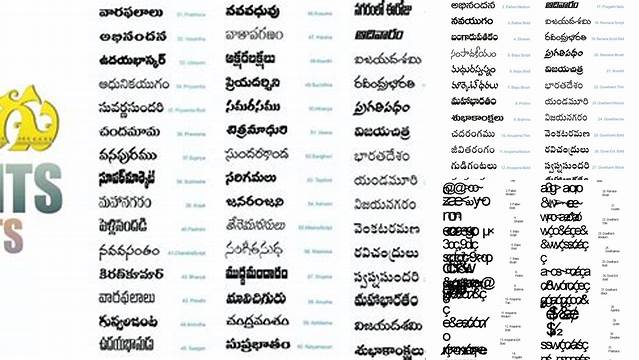
Anu Script Telugu Fonts PDF: Your Ultimate Guide
Hey guys! Ever found yourself struggling to find the perfect Telugu fonts for your projects, especially when you need them in PDF format? You're not alone! The world of digital typography can be a bit tricky, and when it comes to specific scripts like Telugu, it gets even more interesting. Today, we're diving deep into the realm of Anu Script Telugu Fonts PDF. We'll explore what they are, why they're so popular, and how you can make the most out of them for your creative endeavors. So, buckle up, and let's get started on this font-finding adventure!
Understanding Anu Script Telugu Fonts
First things first, let's break down what we mean by 'Anu Script Telugu Fonts'. When we talk about Anu Script, we're generally referring to a specific style or set of Telugu fonts that are designed to be easily readable and aesthetically pleasing on digital screens and in print. These fonts often aim to capture the elegance of traditional Telugu script while incorporating modern design principles for better usability. The goal is to bridge the gap between the classic look and the demands of contemporary digital content. Think of them as the stylish and functional upgrade your Telugu text has been waiting for. Many designers and content creators prefer Anu Script fonts because they offer a good balance between artistic flair and clear legibility, making them suitable for a wide range of applications, from book printing and website design to social media graphics and personal documents. The nuances of each character are carefully crafted, ensuring that the essence of the Telugu language is preserved while enhancing its visual appeal. This attention to detail is what sets apart quality fonts from the rest, and Anu Script fonts often deliver on this front. They are not just about letters; they are about conveying meaning and emotion through form.
The Importance of Telugu Fonts in Digital Content
In today's digital-first world, the way your content looks is just as important as the words themselves. For a rich and vibrant language like Telugu, having the right fonts is crucial for engaging your audience. Telugu fonts are the visual ambassadors of your message. Whether you're writing a blog post, designing a poster, or creating social media content, the choice of font can significantly impact how your message is perceived. A well-chosen font can make your text look professional, trustworthy, and appealing, while a poorly chosen one can be distracting or even off-putting. For the Telugu language, this means using fonts that accurately represent the intricate beauty of the script, ensuring clarity and readability across various devices and platforms. This is where fonts like Anu Script come into play, offering a blend of tradition and modernity. They help maintain the cultural identity of the language while adapting it for a global digital audience. The readability factor is paramount, especially for longer texts. If readers have to strain their eyes to decipher the words, they're likely to disengage. Good Telugu fonts ensure that the flow of information is smooth and enjoyable. Furthermore, in branding and marketing, the right font can become synonymous with a company or a campaign, creating a lasting impression. It’s a powerful tool in the communication arsenal, and mastering its use for Telugu content is a game-changer for anyone looking to connect effectively with Telugu speakers. The visual representation of the language carries weight, and optimizing it through superior font choices is a strategic move that pays dividends in audience engagement and brand recognition. The evolution of Telugu script in digital media has been greatly influenced by the availability of diverse and high-quality fonts.
Why Choose Anu Script for Your Telugu Projects?
So, why should you specifically look for Anu Script Telugu fonts? The answer lies in their versatility and aesthetic appeal. These fonts are often designed with a keen eye for detail, ensuring that each character is not just legible but also beautiful. They strike a perfect balance between the traditional charm of Telugu script and the clean, modern look that's essential for today's digital and print media. Whether you're designing a wedding invitation, a formal document, or a catchy social media graphic, Anu Script fonts can add that extra touch of sophistication and professionalism. They tend to render exceptionally well on screens, reducing eye strain and making your content a pleasure to read. For print, they offer crisp lines and a pleasing density. Many users find that Anu Script fonts are also quite flexible, meaning they can be used across a variety of software applications without compatibility issues. This ease of use, combined with their attractive design, makes them a go-to choice for many who work with Telugu content regularly. They often come with a comprehensive set of characters, including ligatures and special symbols, which are vital for accurate and expressive writing in Telugu. The creators of these fonts usually invest a lot of time in research and development to ensure they meet the needs of both casual users and professional designers. The consistency in stroke weight and spacing across characters contributes to a harmonious reading experience, which is a hallmark of well-designed typography. Choosing Anu Script is choosing a font that understands the nuances of Telugu and presents it in a way that resonates with contemporary audiences while respecting its heritage. It’s about making your words not just seen, but felt.
Exploring Anu Script Telugu Fonts PDF Options
When you're on the hunt for Anu Script Telugu fonts, you'll often encounter them in PDF format. But what does that mean, and why is it relevant? A Telugu fonts PDF usually refers to documents or resources where these fonts are showcased, explained, or even provided for download. Sometimes, designers create sample PDFs to demonstrate how the fonts look in different contexts – headings, body text, different sizes, etc. Other times, it might be a PDF guide on how to install and use these fonts. The key thing to remember is that a PDF itself isn't the font file (like TTF or OTF), but rather a document containing or referencing the font. Think of it as a visual catalog or a user manual. So, when you search for "Anu Script Telugu Fonts PDF," you might be looking for a downloadable sample book, a type specimen sheet, or perhaps even a bundle of font files packaged within a ZIP archive that also includes a PDF guide. It's important to understand this distinction so you know what you're actually downloading and what you need to do with it once you have it. The goal is to find resources that are genuinely helpful, whether they offer direct font downloads or simply provide the inspiration and information you need to acquire and use them effectively. This clarity helps in navigating the vast digital landscape of fonts more efficiently and finding exactly what you need without frustration. The utility of a PDF in this context is its portability and universal compatibility, allowing easy sharing and viewing across different devices and operating systems. It serves as a readily accessible reference material for anyone interested in using these specific Telugu fonts.
Benefits of Using PDF for Font Previews
Using PDFs as a way to preview or showcase Anu Script Telugu fonts has several advantages, guys. Firstly, PDFs maintain their formatting perfectly across different devices and operating systems. This means that a font sample you see on your computer will look exactly the same on your friend's computer or even when printed. This consistency is super important when you're evaluating how a font looks and reads. Secondly, PDFs are great for embedding font information (though not the actual font files usually, unless specifically designed to). This allows viewers to see the font as intended by the designer. Thirdly, PDFs can be easily shared via email or downloaded from websites without worrying about compatibility issues. They act as a universal canvas for typography. Designers often create detailed type specimen PDFs that show the font in various weights, sizes, and character sets, helping users understand its full potential. This is invaluable when you need to see how the font handles different scenarios – from catchy headlines to lengthy paragraphs. So, when you find an "Anu Script Telugu Fonts PDF," it’s likely a well-thought-out resource designed to give you a clear and accurate preview of the font's appearance and usability. It's a professional way to present typographic work, ensuring that potential users can make informed decisions about whether the font fits their needs. The static nature of a PDF also prevents accidental edits, preserving the designer's intended presentation.
Installing and Using Anu Script Telugu Fonts
Once you've found and downloaded your desired Anu Script Telugu fonts, the next step is to get them installed on your system. The process is usually straightforward, but it can vary slightly depending on your operating system (Windows, macOS, or Linux). Generally, font files come in formats like TrueType (.ttf) or OpenType (.otf). For installation, you typically just need to double-click the font file. On Windows, this often opens a window with an "Install" button. On macOS, double-clicking usually opens the Font Book application, where you can click "Install Font." Once installed, the font should become available in most of your applications – word processors, graphic design software, etc. Using Telugu fonts like Anu Script in your projects is where the real magic happens. Open your chosen application, select the text tool, and look for your newly installed Anu Script font in the font dropdown menu. Type away and see your Telugu text come to life! If you're working with a PDF that contains these fonts, you can often copy and paste text from it, provided the PDF's security settings allow it and the text is actually embedded as text rather than an image. However, remember that just because you see a font in a PDF doesn't mean you have it installed. You'll still need to acquire the font file itself to use it in your own documents. Mastering the installation and usage ensures that you can seamlessly integrate these beautiful fonts into your workflow, enhancing the visual appeal and professionalism of all your Telugu content. It’s all about making the technology work for you and your creative vision.
Even with the best fonts, you might run into a few hiccups. A common issue when working with Telugu fonts is incorrect rendering, where characters might appear jumbled or misplaced. This can sometimes happen due to font conflicts, incorrect installation, or software compatibility problems. If your Anu Script font isn't showing up in your application, try restarting the application or your entire computer. Sometimes, the font cache needs to be cleared. Another issue could be incorrect character mapping, especially if you're using a font that wasn't designed with proper Unicode support. Always ensure you're downloading fonts from reliable sources that adhere to Unicode standards. If you're experiencing display problems, check if the font has multiple files (e.g., Regular, Bold, Italic) and if you've installed all of them correctly. For PDFs, if text isn't copying correctly, it might be because the text was saved as an image rather than actual text data, or font embedding restrictions are in place. Troubleshooting font issues often involves a bit of detective work: try the font in a different application, check its properties, or consult the font designer's website for support. Don't get discouraged; most font-related problems have straightforward solutions with a little patience. Remember, the goal is to ensure your Telugu text is displayed accurately and beautifully, so persistence is key when facing these minor technical challenges. Understanding the basics of font file types (TTF, OTF) and Unicode can also go a long way in preventing and solving these problems efficiently. It’s about knowing your tools and how they behave.
Tips for Optimal Font Usage
To truly make your Anu Script Telugu fonts shine, consider a few best practices. Firstly, readability is king! Always test your chosen font in the context where it will be used. A font that looks great in a large headline might be difficult to read in a paragraph of body text. Use Anu Script fonts strategically – perhaps for headings, titles, or specific design elements where their unique style can be appreciated without compromising comprehension. Secondly, pay attention to character spacing and line height (leading). Adjusting these settings can significantly impact the overall look and readability of your text. Most design software allows you to fine-tune these typographic details. Thirdly, maintain consistency. If you're using Anu Script for your brand's main titles, stick to it across all your materials. Avoid mixing too many different fonts, as this can make your design look cluttered and unprofessional. Fourthly, consider the file format. While TTF and OTF are common, some older systems or specific software might have preferences. Ensure you have the right format for your needs. Finally, respect font licensing. Always adhere to the terms of use for any font you download, whether it's free or commercial. Using fonts legally ensures you avoid potential legal issues down the line. By following these tips, you'll not only make your Telugu content look fantastic but also ensure a smooth and professional user experience. It's about using typography not just as decoration, but as a functional element of communication. Happy typing, guys!
Final Call to Action
Ready to elevate your Telugu content? Start by searching for Anu Script Telugu Fonts PDF resources and downloading a few promising font families today. Install them, experiment with them in your projects, and see the difference quality typography can make. Don't just read about it – do it! Your audience will thank you for the enhanced readability and aesthetic appeal. Explore, create, and make your mark with beautiful Telugu typography. The digital world awaits your beautifully typeset words!